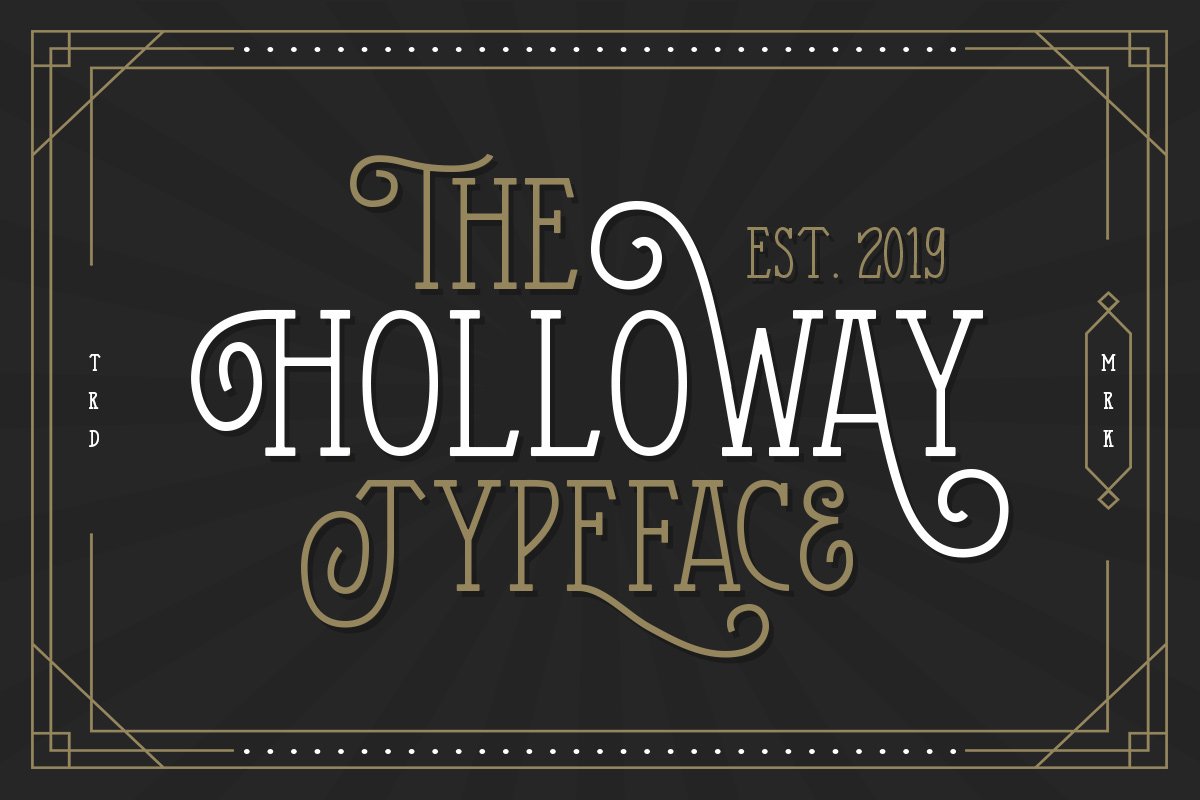
The Holloway Font
The Holloway Font is perfect for distinguished academic institution branding, prestigious law firm communications, established financial services materials, classic university publications, refined corporate presentations, traditional publishing house designs, heritage brand identities, sophisticated business correspondence, institutional documentation, and distinguished professional service providers. This authoritative typeface brings timeless credibility to prestigious educational institutions, established banking organizations, traditional consulting firms, heritage preservation societies, and distinguished cultural organizations.
The Holloway Font is exciting because it embodies institutional gravitas and established authority through its classically proportioned letterforms that command respect and convey enduring credibility. The font features dignified characters with traditional proportions and authoritative details that evoke the reliability of established institutions, the wisdom of academic tradition, and the trustworthiness of time-honored organizations. Its distinctive construction demonstrates institutional excellence with carefully balanced elements that create an immediate sense of prestige and professional authority. The font's distinguished presence and institutional authenticity make it perfect for organizations seeking to communicate established credibility, professional excellence, and institutional heritage in their visual communications.
The Holloway Font family includes various distinguished styles: Light, Regular, Medium, Bold, Black, Italic, Condensed, Extended, Display, Classic, Traditional, and Institutional variants. Each family member maintains the core distinguished DNA while offering different levels of authority for diverse prestigious design applications. The comprehensive font collection ensures consistent institutional branding across academic campaigns, professional services, and heritage communication materials.
Whether you're creating institutional brand identities, designing prestigious marketing materials, developing authoritative website headers, or crafting heritage promotional campaigns, The Holloway Font delivers outstanding institutional appeal and distinguished authenticity. The font's distinctive prestigious personality excels in institutional logos, professional packaging design, academic applications, and heritage projects where established authority and institutional credibility are essential.